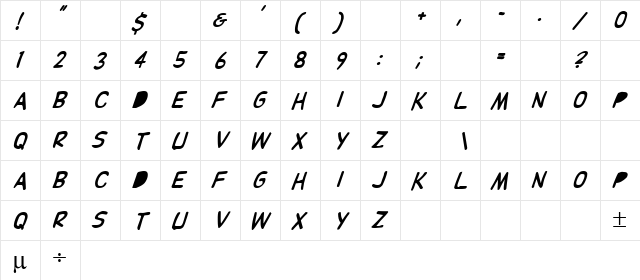
Sperrys Forge Italic Regular
Design Context for Sperrys Forge Italic Typeface
Sperrys Forge Italic offers clean, dependable letterforms without strong stylistic allegiance, making it a practical choice for designers who need flexibility. The slanted form adds forward momentum and visual energy.